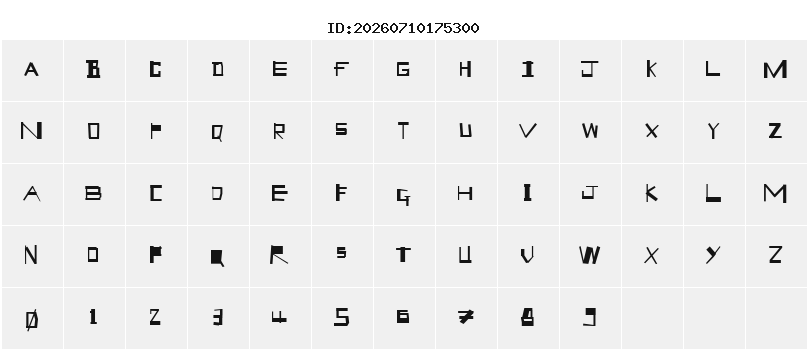
• Font Name: Geek Speek
• Full Font Name: Geek Speek
Geek Speek.ttf is a modern, elegant sans-serif font designed for ultimate readability and visual harmony. Perfect for branding, headlines, web design, and print materials.